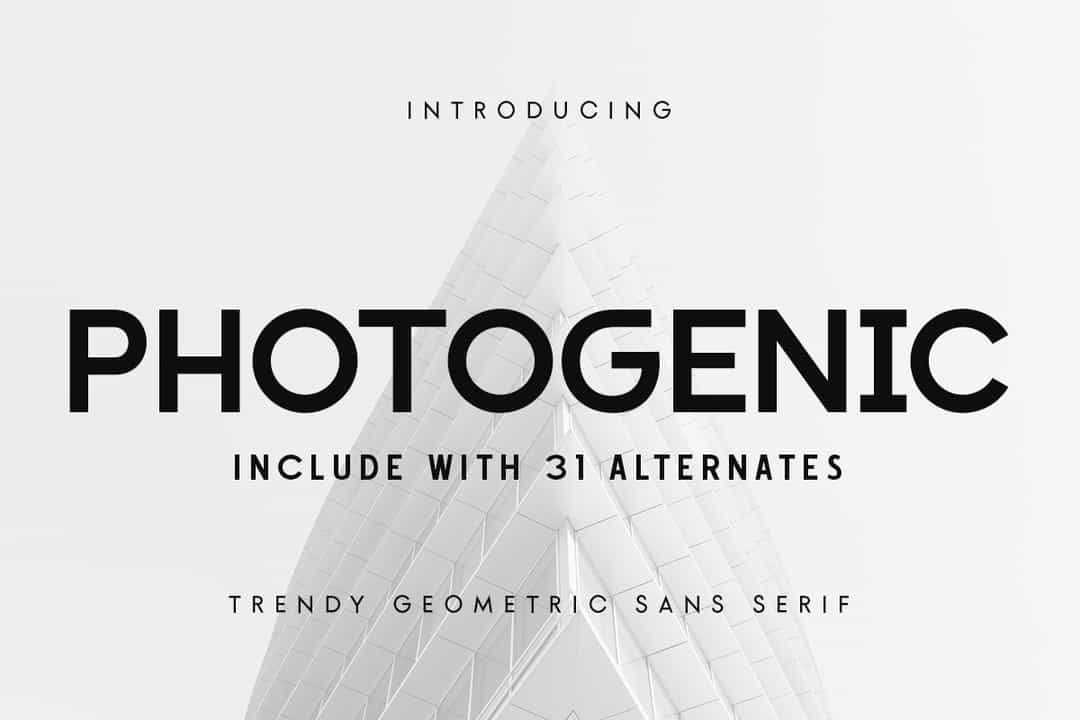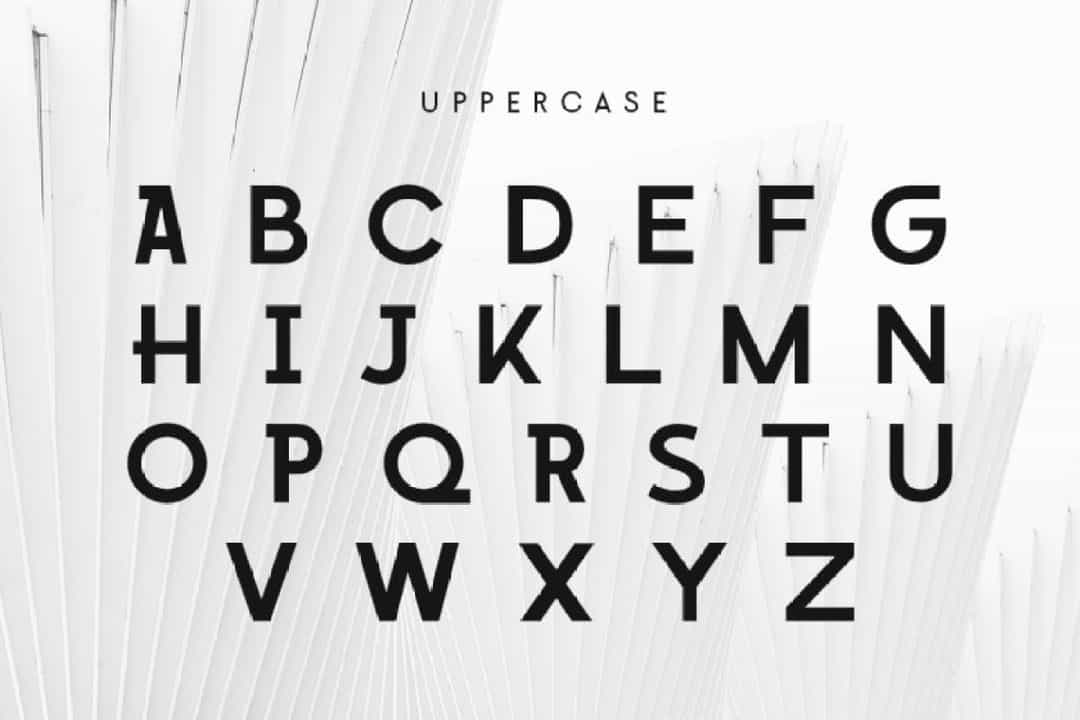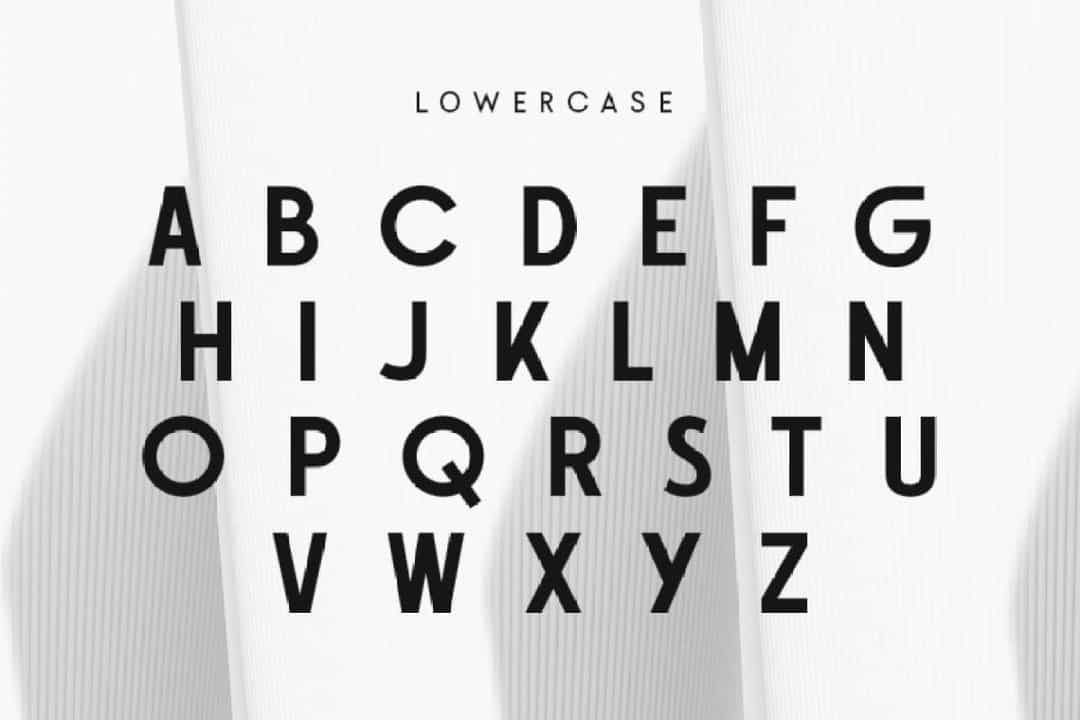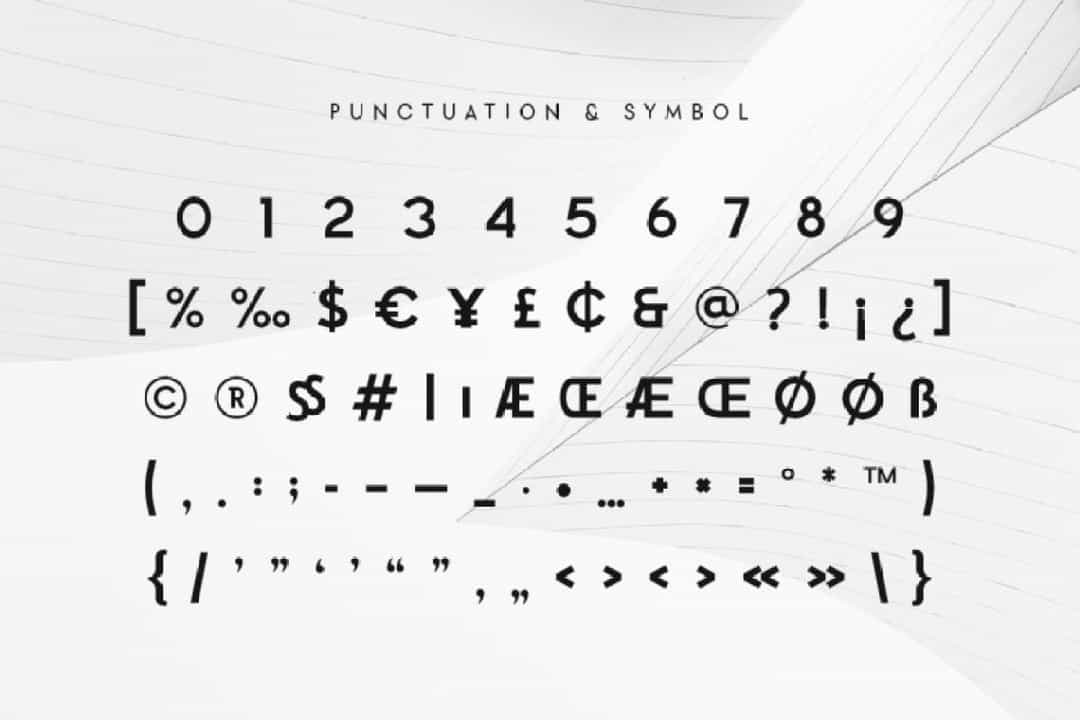
Photogenic is a strong spirited font on the sans-serif family designed to give your creations the modern energy you need to make them stand out. It’s great to add your style and the headline overview of the business, technology actions, and minimalist theme.